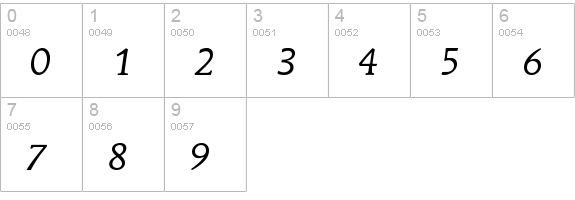
MendozaEF-BookItalic Font Details
The MendozaEF-BookItalic font is a stylish and modern typeface that exudes elegance and sophistication. Its sleek italics add a touch of flair to any design project, making it perfect for use in branding, editorial design, and more. With its clean lines and graceful curves, this font is sure to make a statement and elevate your creations to the next level. Best of all, the MendozaEF-BookItalic font is completely free to download at FontsMarket.com. This means you can easily access this high-quality typeface without any cost, making it an excellent choice for designers looking to add a touch of class to their work without breaking the bank. Don't miss out on the opportunity to enhance your projects with this beautiful and versatile font - download it today and see the difference it can make!